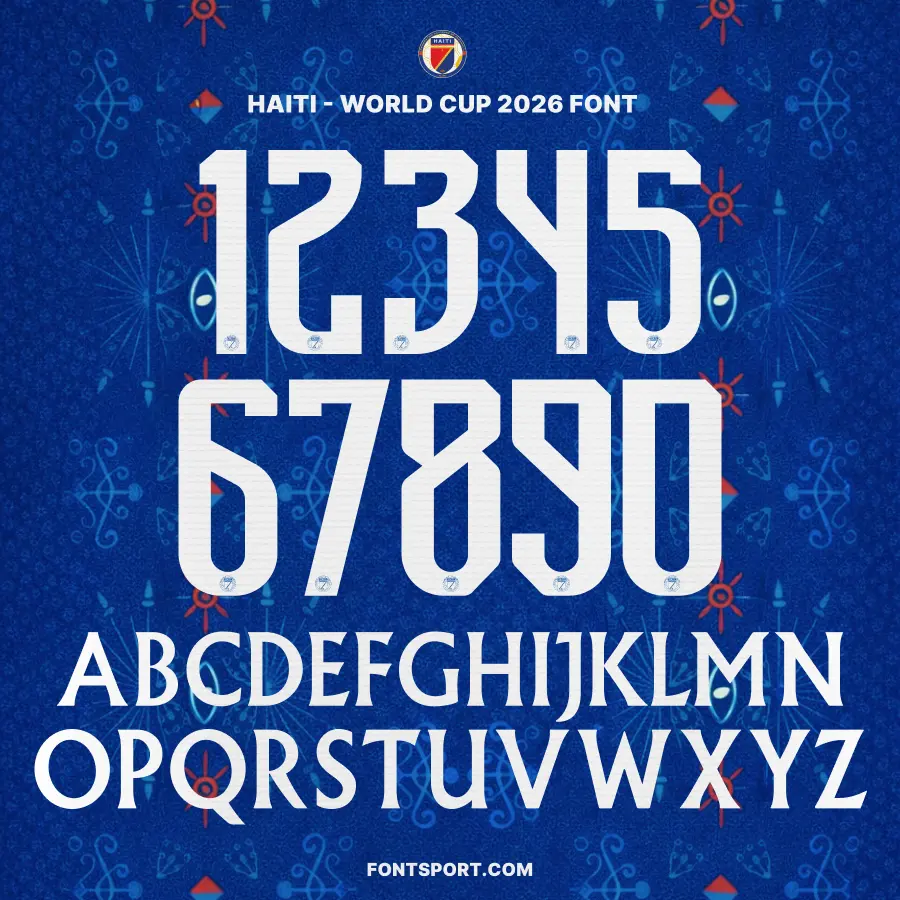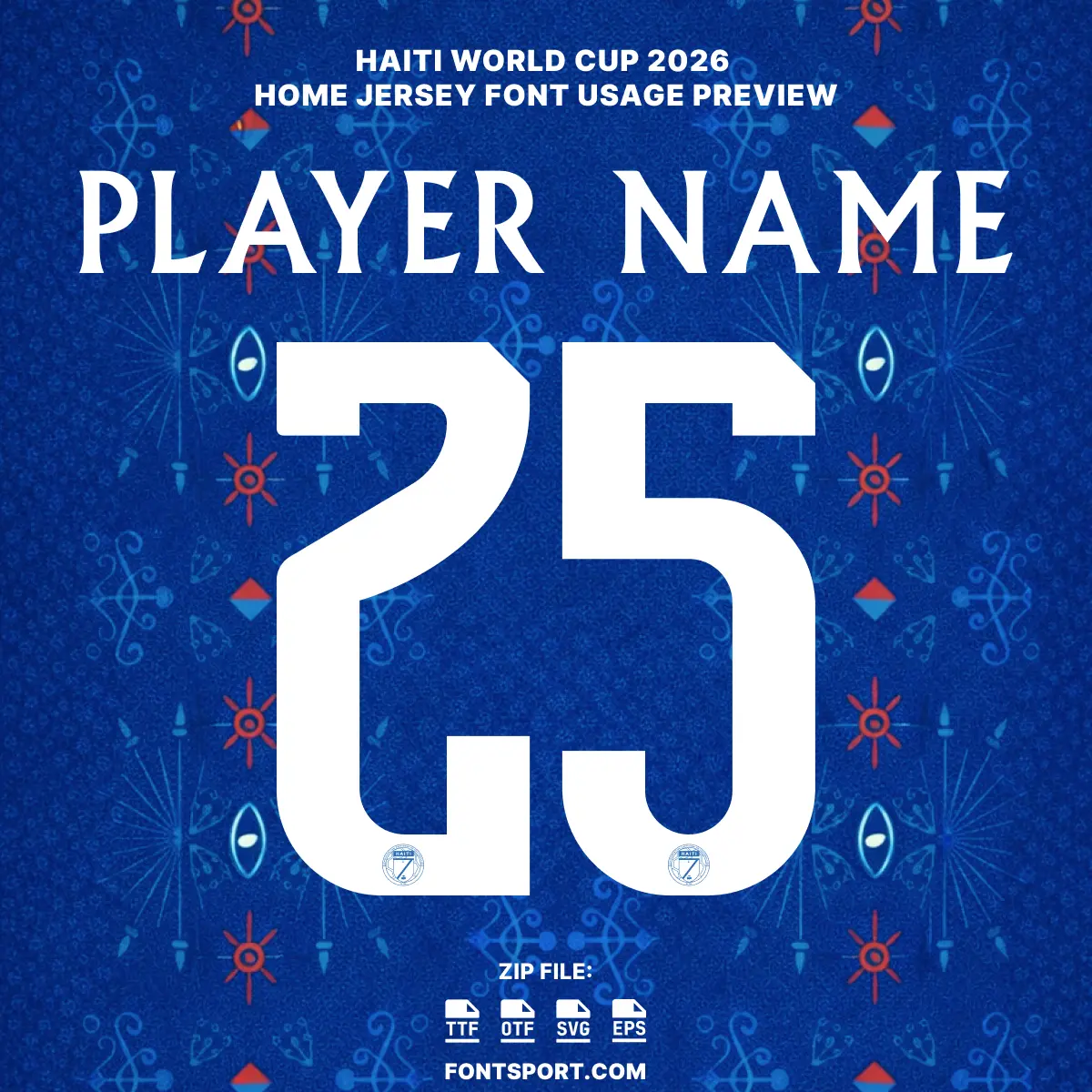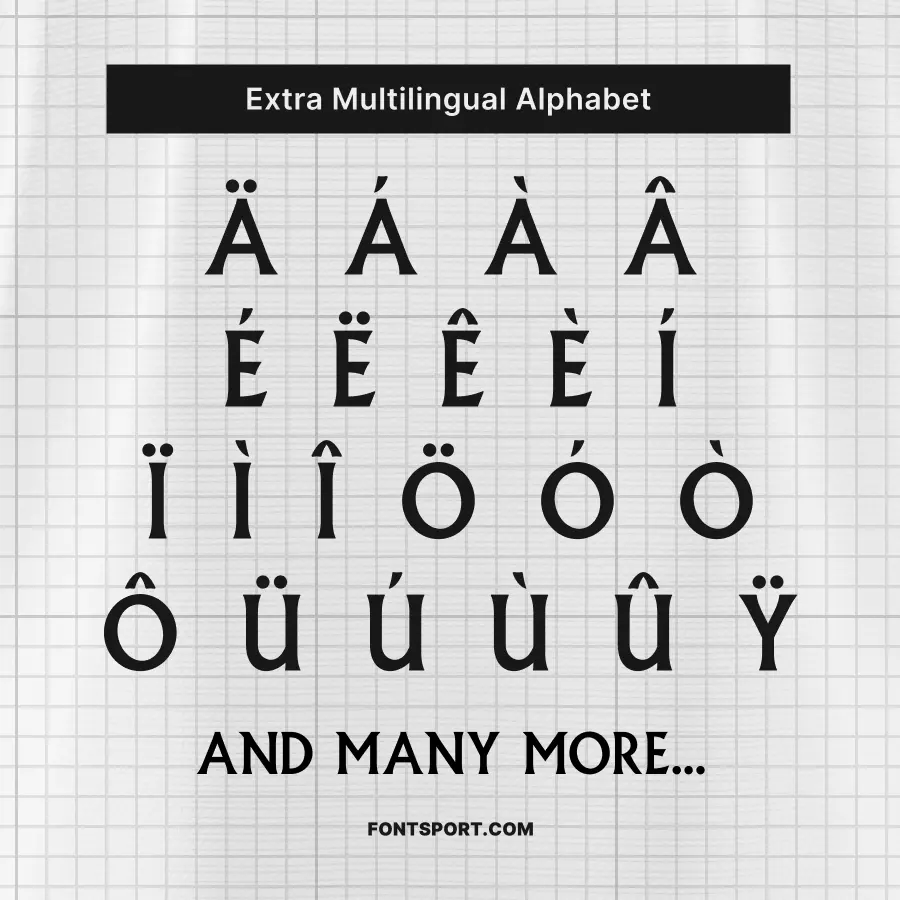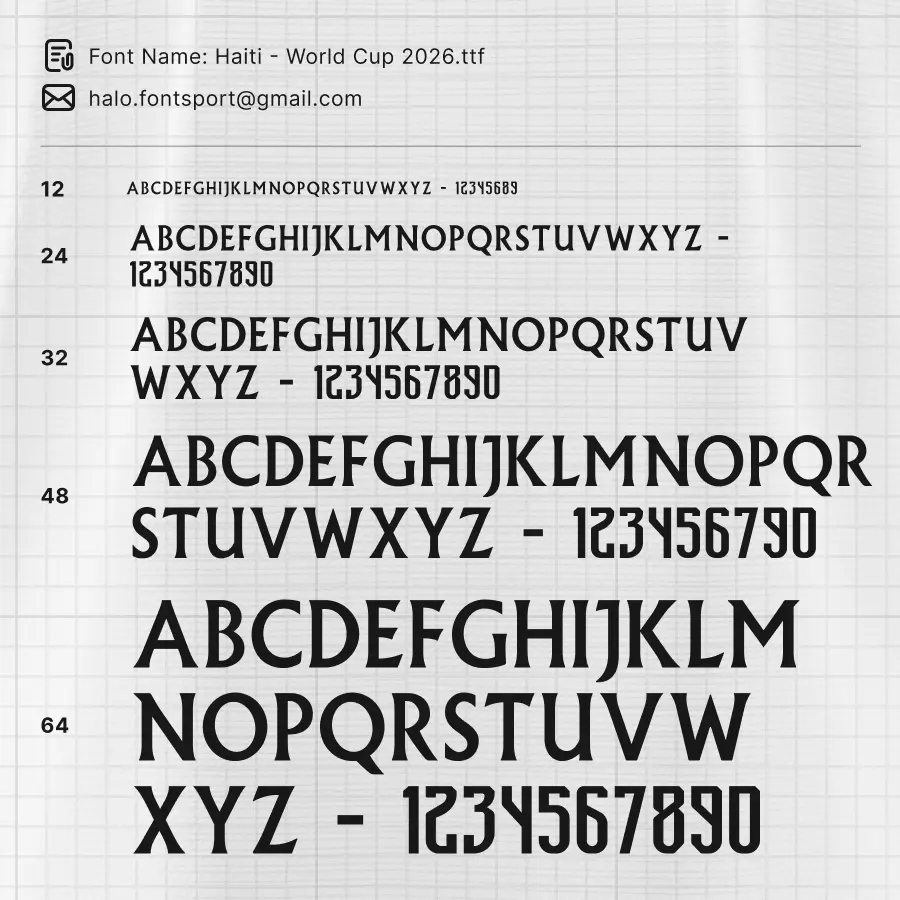
The Haiti World Cup Home 2026 Font Kit is a modern football font inspired by Haiti’s national team identity and its growing presence in international football. This sport font is designed for designers, creators, and football fans who want bold and readable typography for sports-focused projects.
This font for jersey projects helps you create clear player names, numbers, and football visuals with strong legibility. The letterforms feel energetic and balanced, making them suitable for posters, jerseys, merchandise, packaging, banners, and digital content.
• Designed as a versatile font for jersey and sports graphics
• Clean, modern, and readable letterforms
• Inspired by international football design trends
Because of this balance, the font remains functional and visually strong.
These verified updates reflect Haiti’s momentum and competitive identity. That same energy inspires this football font style: bold, readable, and match-ready.